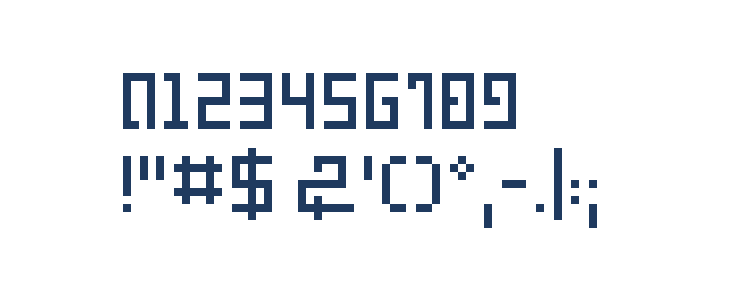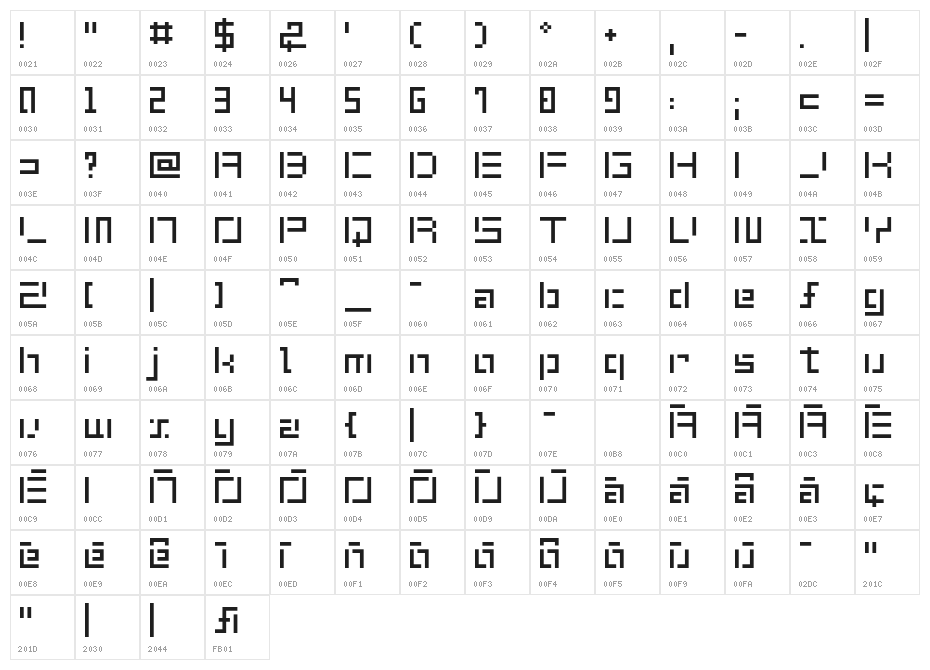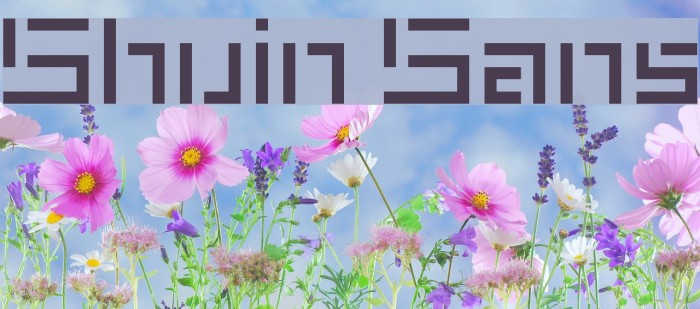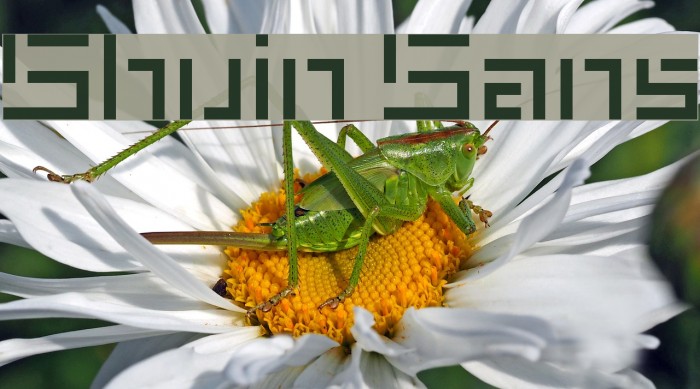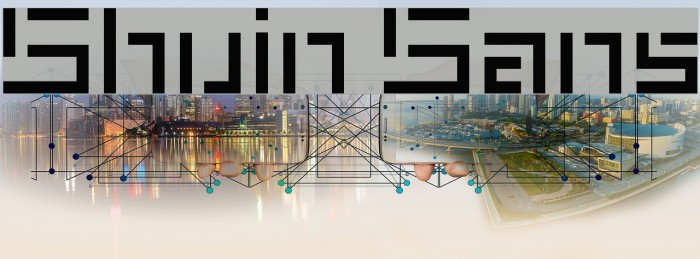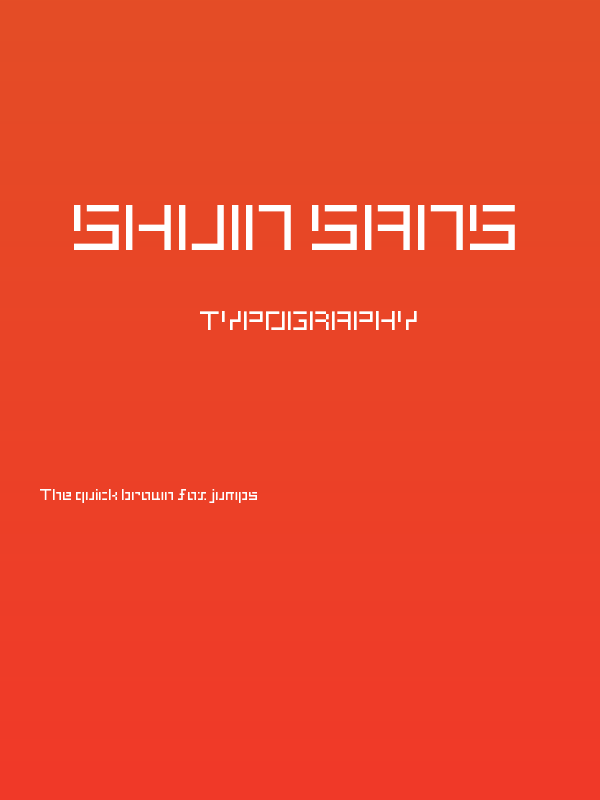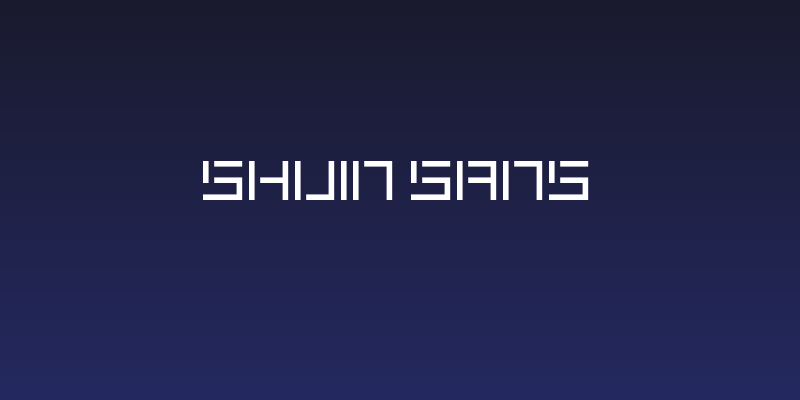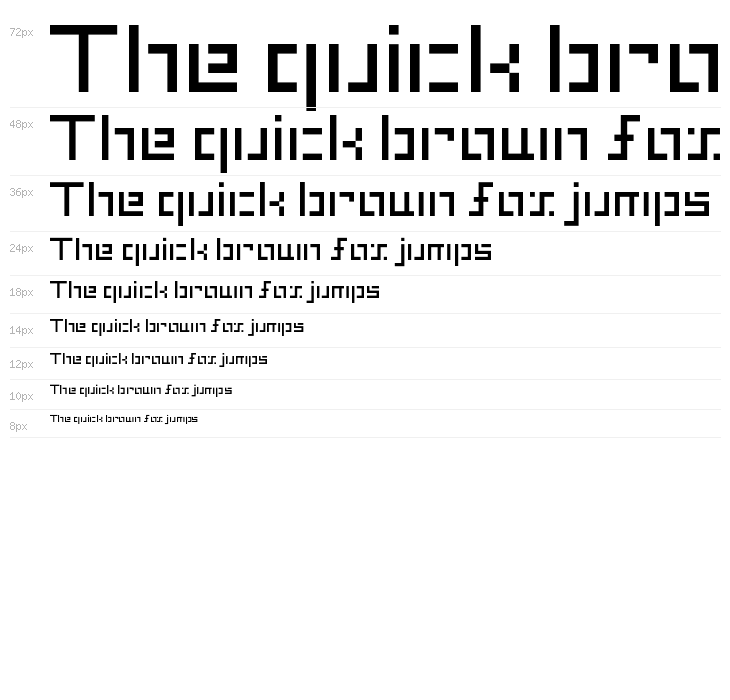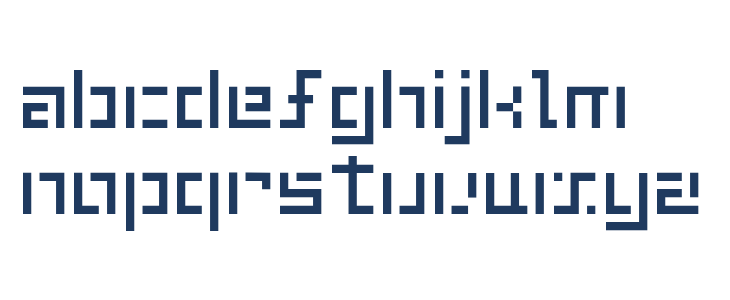
Shuin Sans Font
Shuin Sans Description
This font features a geometric and modular design, characterized by its blocky and pixelated appearance. Each character is constructed with a uniform stroke width, giving it a digital and futuristic feel. The letters are distinctly angular, with sharp corners and straight lines, creating a sense of precision and modernity. The uppercase and lowercase letters maintain a consistent style, while the numerals and special characters complement the overall aesthetic with their bold and structured form. This font is ideal for projects that require a tech-savvy or retro digital look.